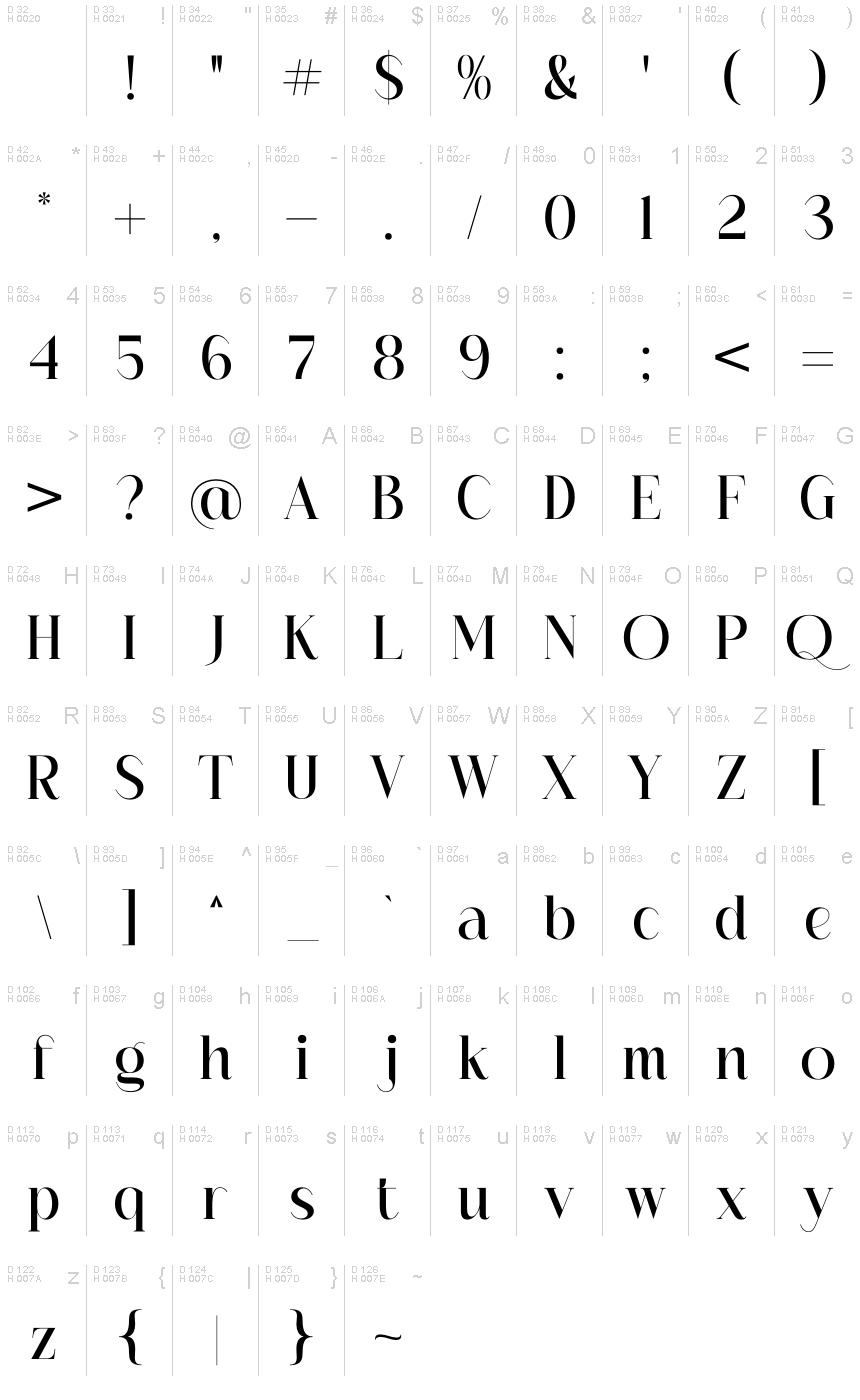
Hagmolya
Hagmolya by Storytype Studio captures the essence of elegance and sophistication with its striking serif style. The font’s delicate curves and subtle yet distinct contrasts between thick and thin strokes create a powerful visual appeal. Every letter exudes a timeless beauty that makes Hagmolya an excellent choice for projects requiring a touch of class, such as high-end branding, editorial layouts, and luxury product packaging.
The pronounced serifs add a layer of refinement, drawing the eye smoothly along each character's path. This harmonious balance between traditional design elements and modern finesse ensures that Hagmolya commands attention while remaining versatile across various media.
Whether used to headline an upscale magazine or grace the façade of an exclusive boutique, Hagmolya elevates any text with grace and clarity. Its impeccable craftsmanship makes it not just a typeface, but a statement.